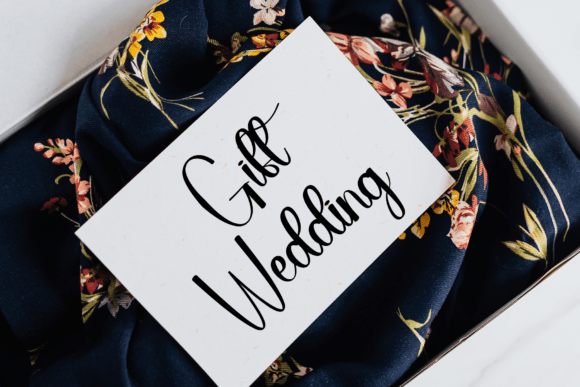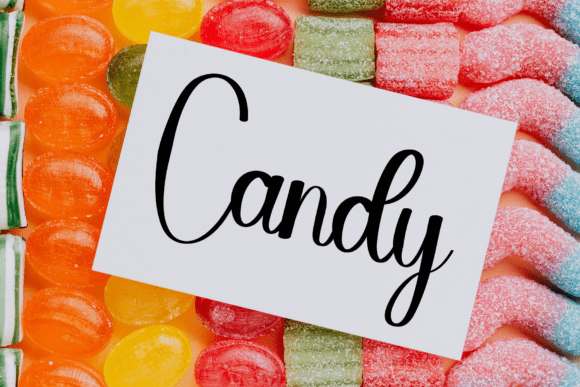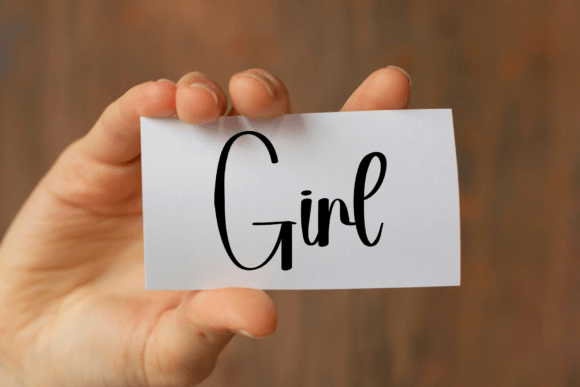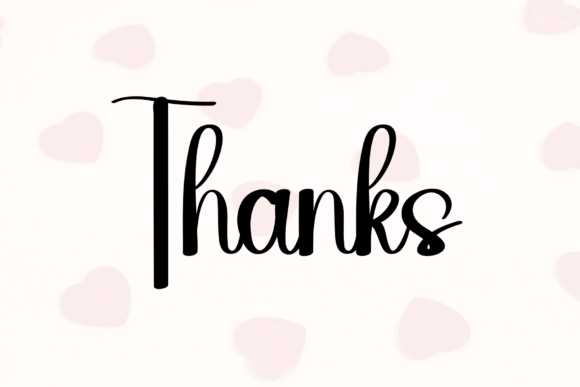
Introduction to Monkey Valentine Font
Do you remember the moment you stumbled upon the perfect design element for a creative project? The one that sets your heart racing and makes everything fall into place? For designers, finding the right font can be a game-changer, and that’s exactly what the Monkey Valentine Font does.
With its charming handwritten style and smooth strokes, this high-quality font is a design resource that will elevate your work to the next level. Whether you’re creating a brand identity, designing invitations, or crafting social media graphics, the Monkey Valentine Font is a valuable addition to your toolkit.
Key Features of Monkey Valentine Font
- High-quality design resource perfect for creative projects, offering a unique and playful touch.
- Monkey Valentine Font is available in 2 different font styles, providing users with versatility and flexibility in their design choices.
- Perfect for use in digital and print-based design projects, including logos, posters, and social media graphics.
Honest Review: Monkey Valentine Font
I recently stumbled upon the Monkey Valentine Font and I must say it’s a delightful addition to any design project. This free download has been a game-changer for me, offering high-quality typography that elevates my creative projects to the next level.
One of the standout features of this font is its versatility. I can use it for a variety of design needs, from social media graphics to blog posts. The transparent background makes it easy to layer over other elements and create visually appealing designs.
Limitations: ⚠️ While the font is high-quality, it’s not ideal for projects that require a lot of customization. Some users may find the limited flexibility to be a drawback.
Overall, I’m thoroughly impressed with the Monkey Valentine Font. It’s a fantastic design resource that’s perfect for any creative project. Whether you’re a seasoned designer or just starting out, this font is definitely worth checking out.
Tips for Getting the Most Out of Monkey Valentine Font
To get the most out of the Monkey Valentine Font, experiment with different font sizes, colors, and combinations. This font is perfect for creative projects that require a unique and eye-catching style.
The Monkey Valentine Font is ideal for a variety of creative projects, including invitations, posters, social media graphics, and more. Its unique style makes it perfect for adding a touch of whimsy and personality to your designs.